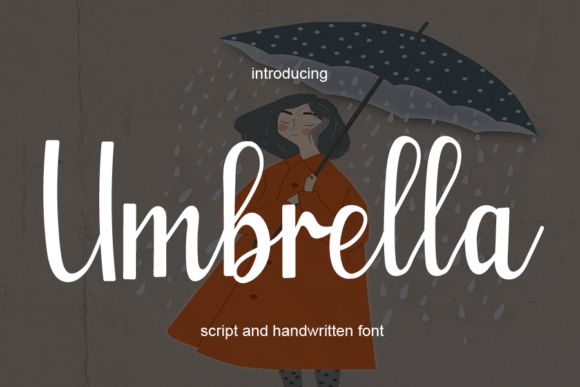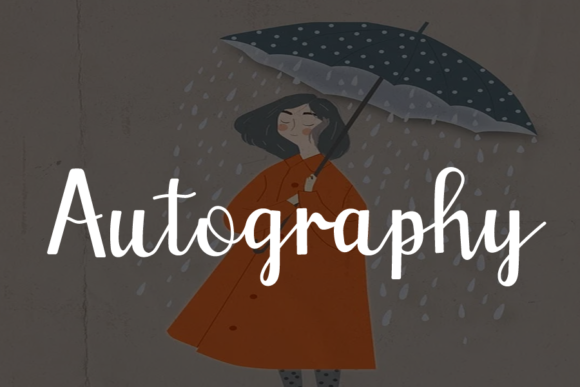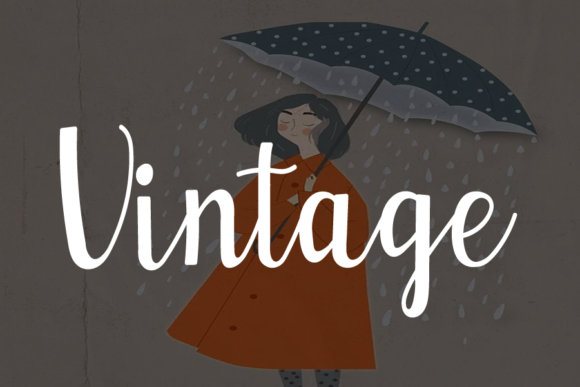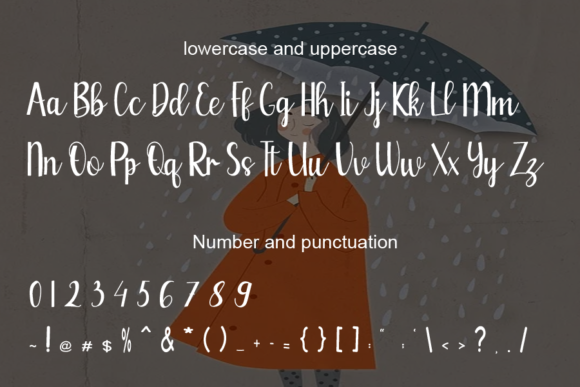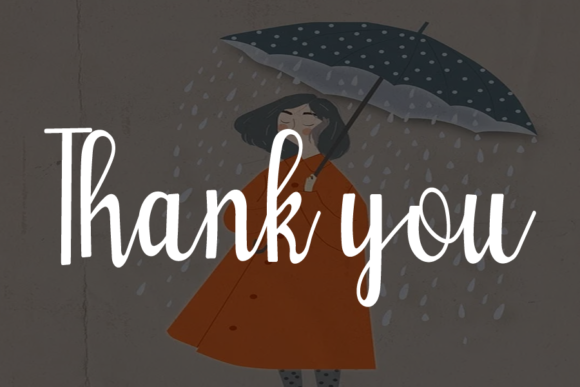
About Umbrella Font
Umbrella is an elegant script font. Fall in love with its completely different and timeless style and use it to create spectacular designs!